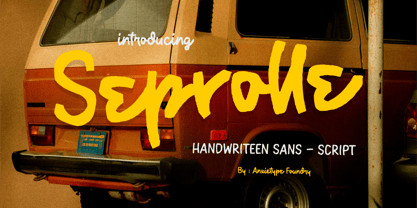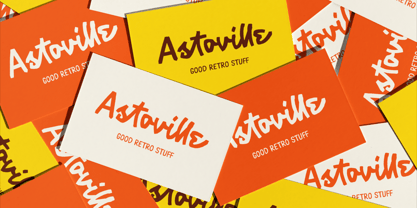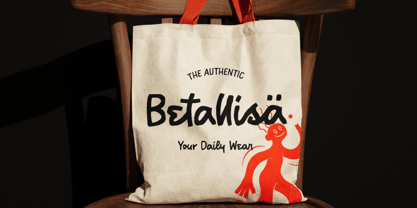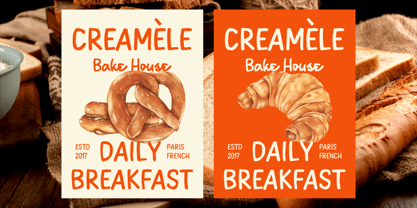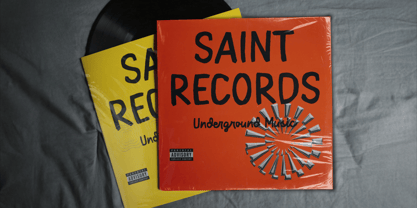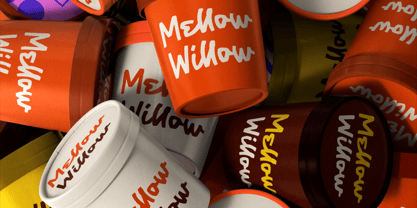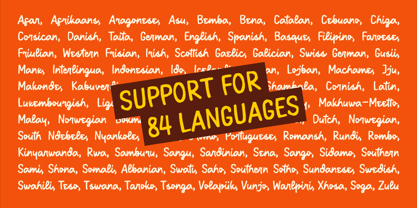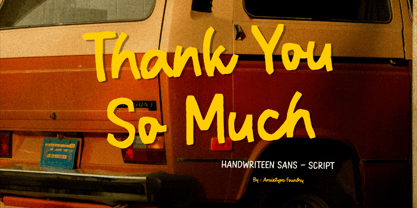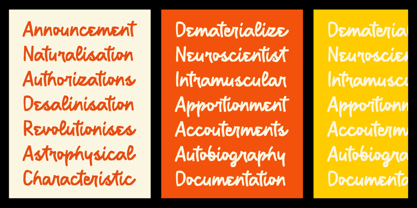
Seprolle
por Anxietype Foundry
La familia tipográfica Seprolle fue diseñada por Bias Surya Buana, Annas Rifky Anhar y publicada por Anxietype Foundry. Seprolle contiene 1 estilos. Más información sobre esta familia
Seprolle is a distinctive handwritten sans-script font from Anxietype Foundry, seamlessly blending the casual charm of hand-drawn lettering with the bold character of vintage and retro brush typography. Drawing inspiration from classic sign painting, retro branding, and expressive brush lettering, Seprolle infuses an authentic, slightly imperfect personality into every design. Its bold strokes and dynamic handwritten forms create a confident yet approachable aesthetic, making it ideal for both modern and nostalgic projects. This versatile font is perfect for a wide range of applications, including logos, branding, packaging, posters, apparel, labels, badges, social media designs, café branding, product packaging, quotes, headlines, and vintage-inspired artwork. Seprolle is designed for creatives who desire typography that feels expressive, handcrafted, bold, and rich in character.
Diseñadores: Bias Surya Buana, Annas Rifky Anhar
Fundición: Anxietype Foundry